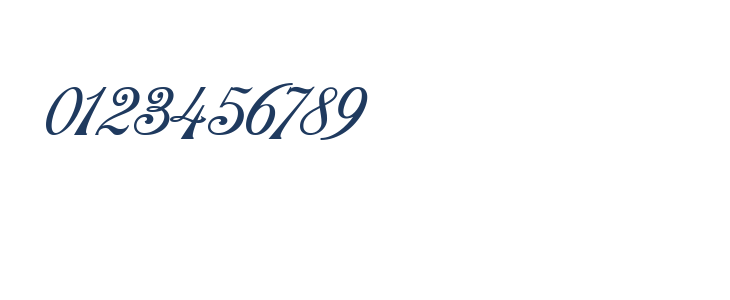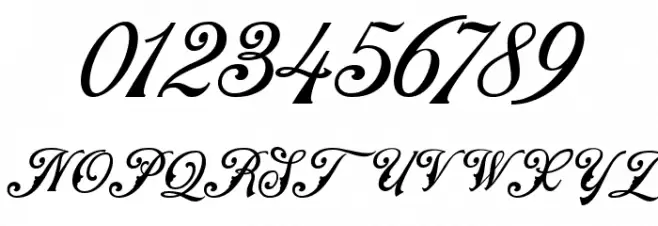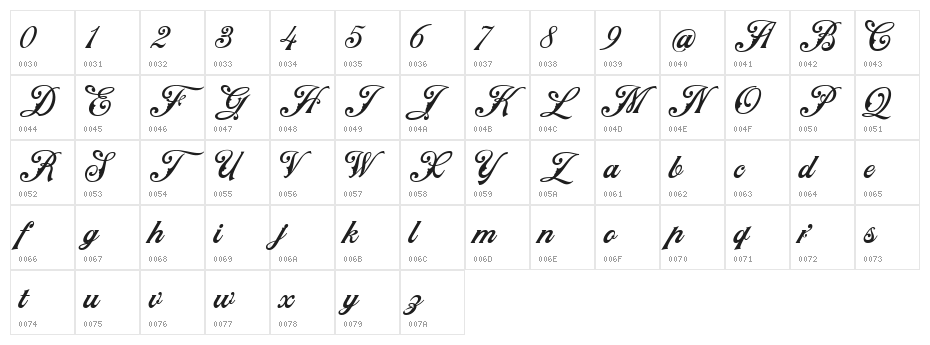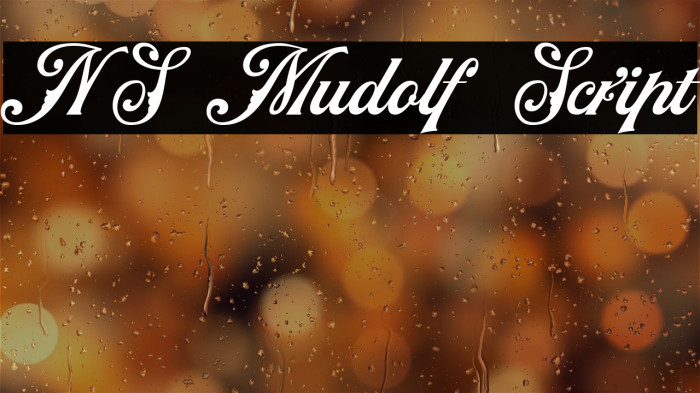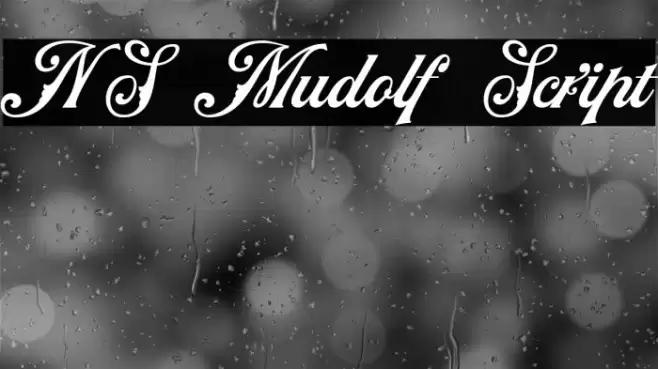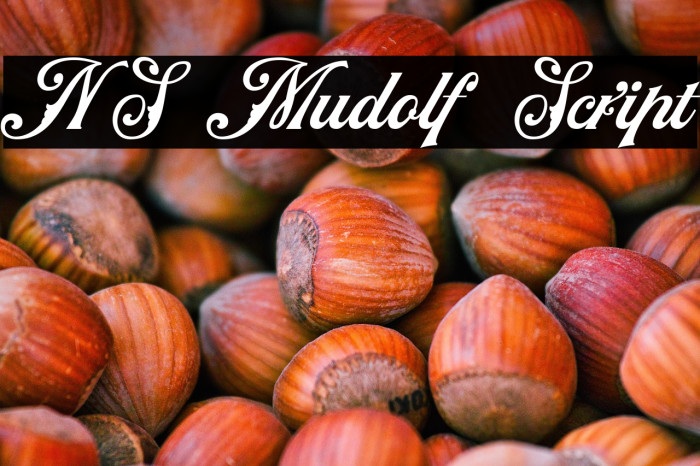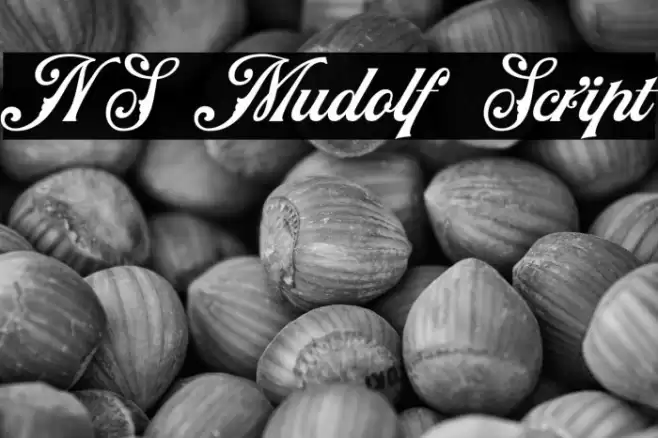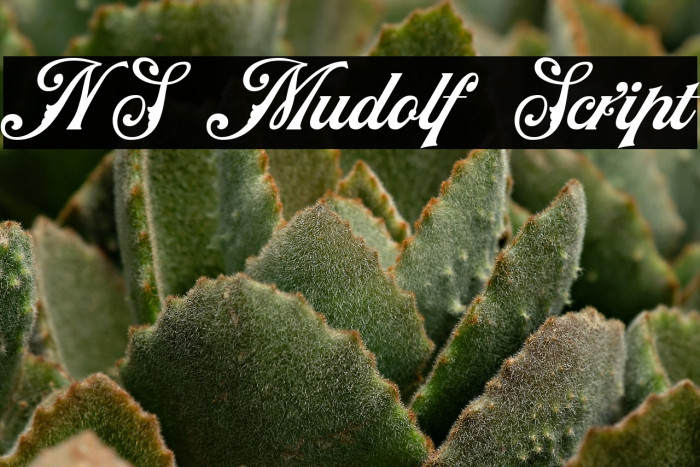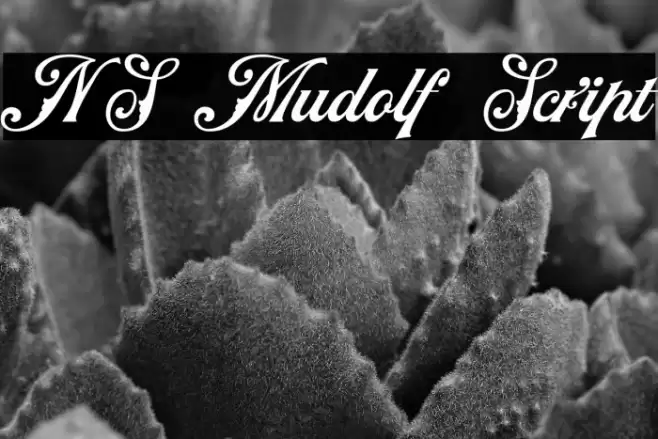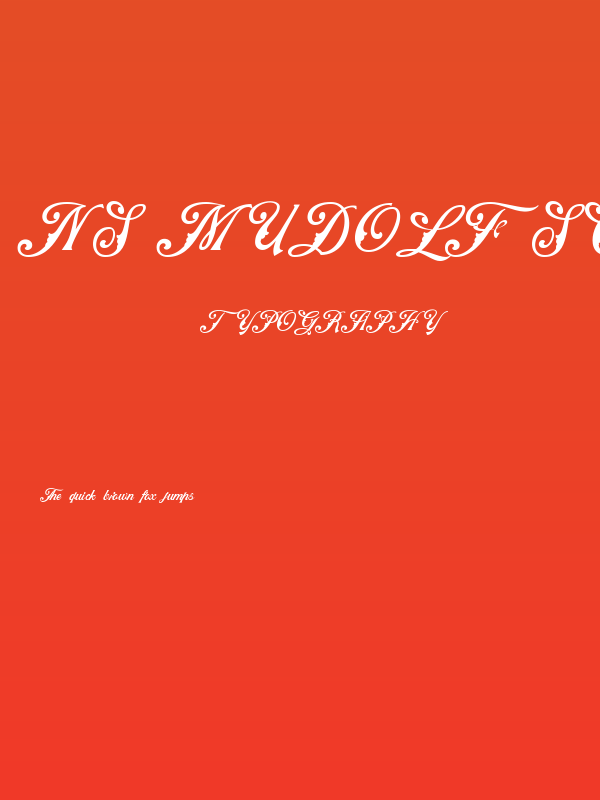
NS Mudolf Script Font
NS Mudolf Script Description
This font exudes elegance and sophistication with its flowing script style. The uppercase letters are adorned with intricate swirls and flourishes, giving them a decorative and ornate appearance. The lowercase letters maintain a smooth and connected flow, characteristic of traditional script fonts. The numerals are stylishly designed, complementing the overall aesthetic. This font is perfect for creating a sense of luxury and refinement, making it ideal for formal invitations, branding, and high-end product packaging.
| Proposed Projects | Ideal for wedding invitations, luxury branding, high-end product packaging, and elegant signage. |